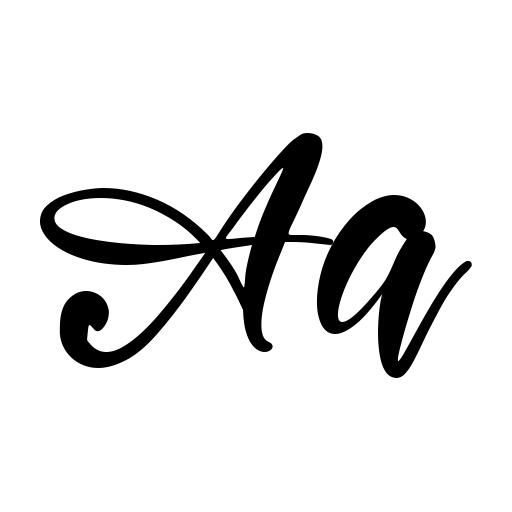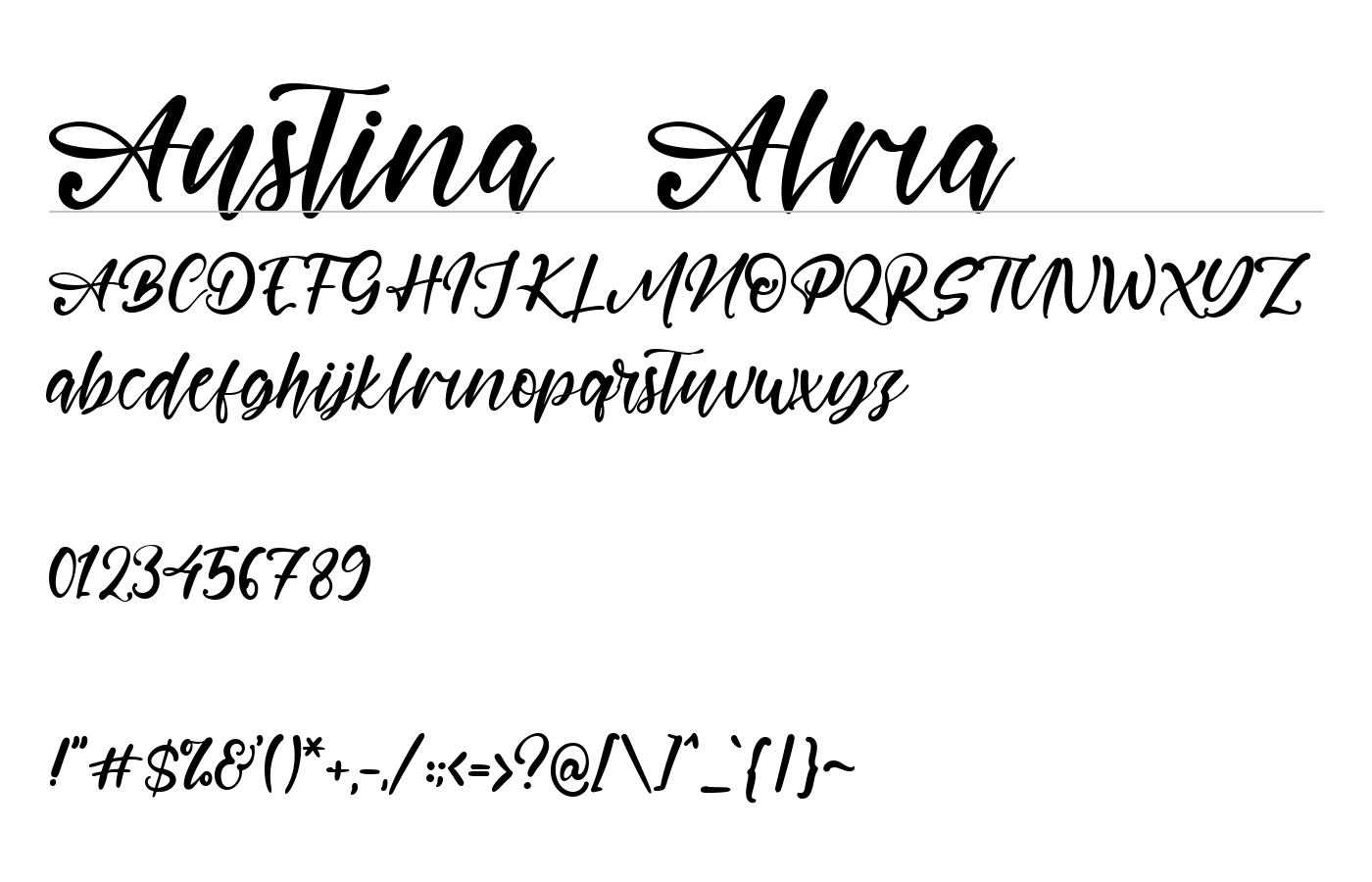
Austina Alma is a graceful script font with a lively, flowing style that mimics natural handwritten calligraphy. It features smooth, medium-weight strokes with elegant curves and slightly varied line thickness, making it perfect for projects that want a charming, personalized touch. This font works well for invitations, branding, fashion, and creative headlines where a stylish yet approachable tone is desired.
Austina Alma Font
About Austina Alma Font